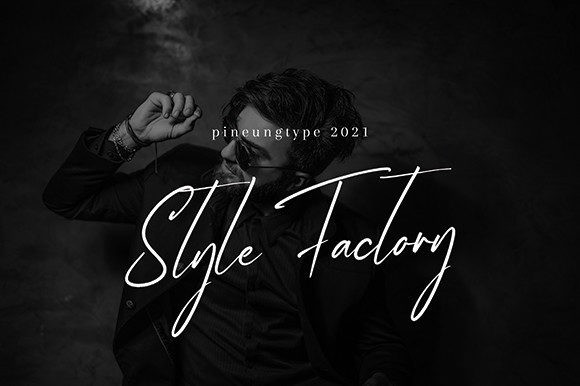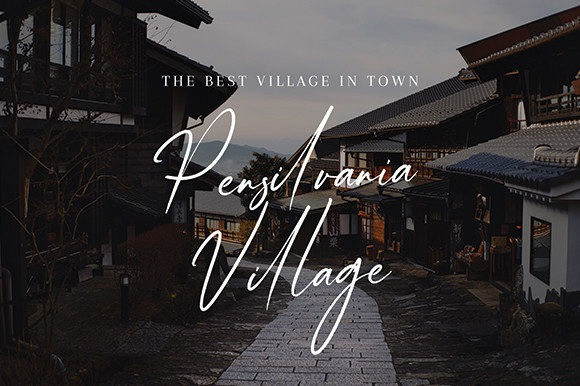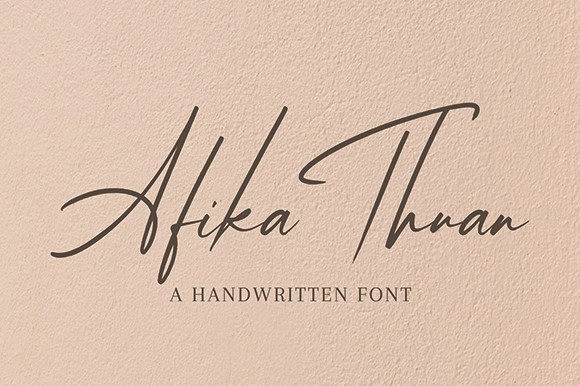
Afika Thuan Font
Afika Thuan Handwritten Font is a romantic and sweet calligraphy typeface with characters that dance along the baseline. It will add a luxury spark to any design project that you wish to create! Afika Thuan will also add a joyful and romantic touch to each of your projects!